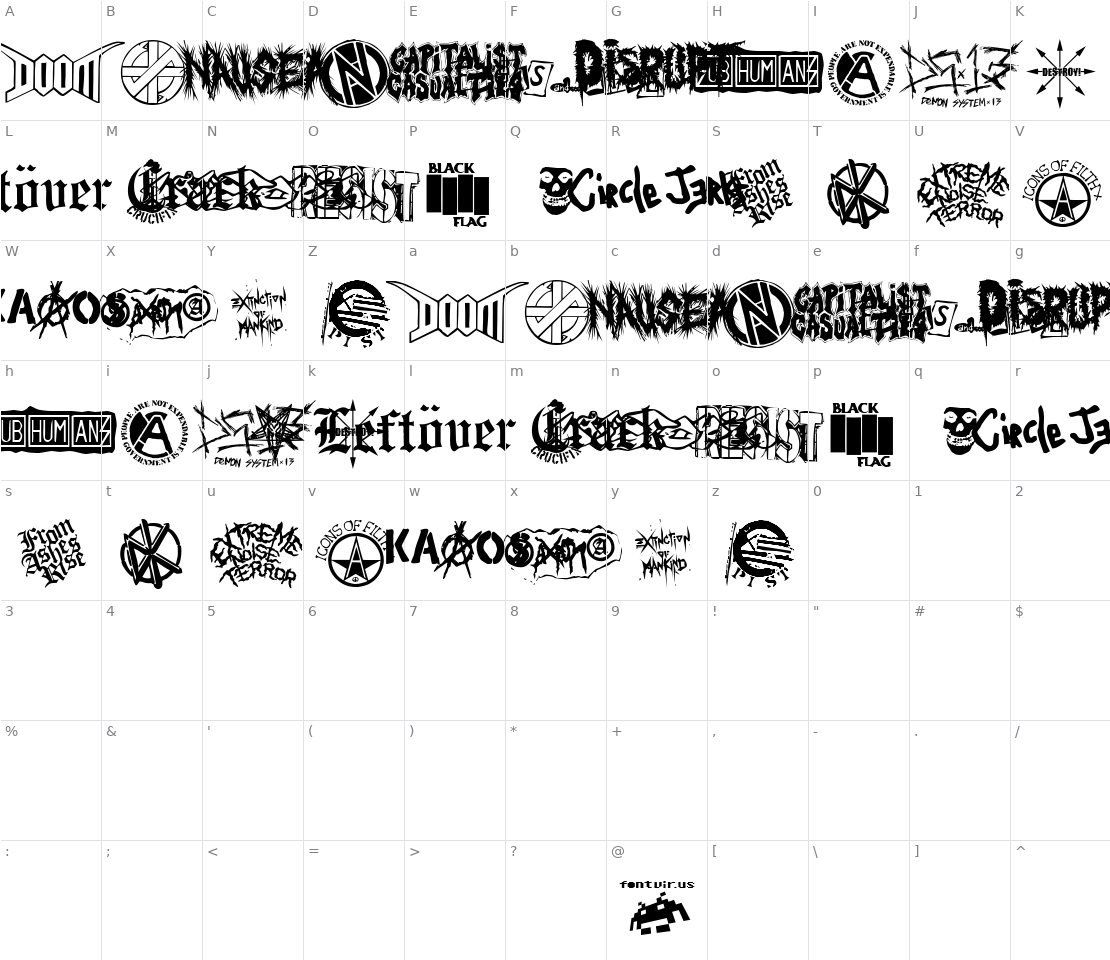
Punk Rawk
Punk Rawk is a dingbat and icon set from fontvir.us packed with symbols, graphics, and imagery drawn from punk and hardcore culture. Rather than traditional letterforms, it delivers skull-and-crossbones, band-style graphics, and grungy decorative elements that feel ripped from zine pages and show flyers. Useful for building out punk-themed layouts, band merch, or adding raw visual texture alongside actual type.